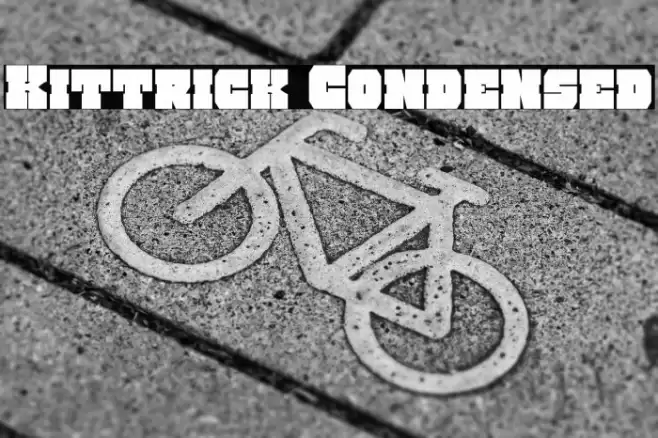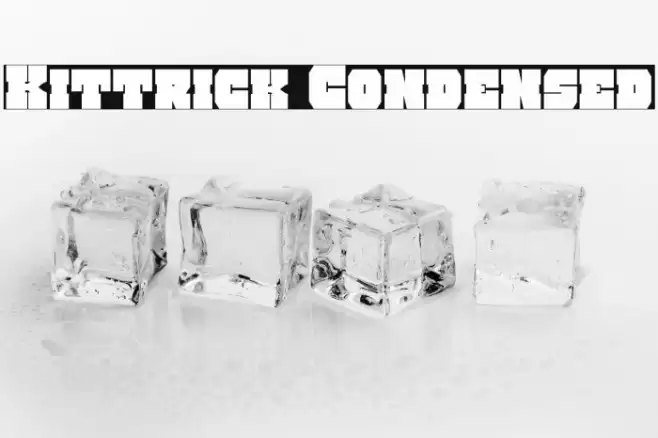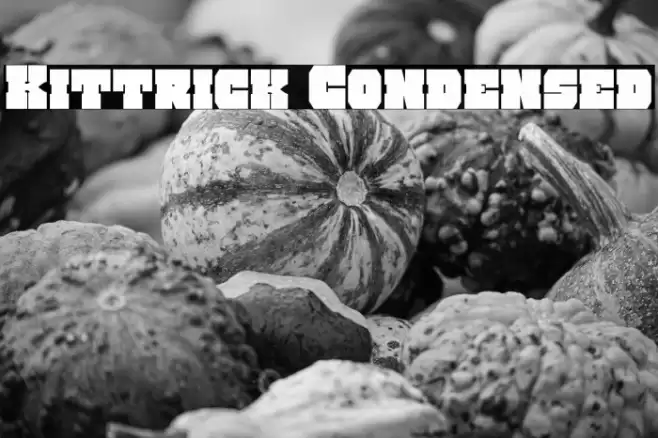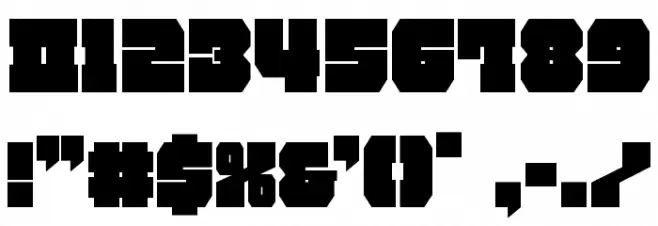
Kittrick Condensed Font
Kittrick Condensed Description
This font features a bold, geometric design with a strong presence. The characters are blocky and condensed, giving them a powerful and impactful look. The uniformity in the stroke width across all characters contributes to a cohesive and structured appearance. The angular cuts and sharp edges add a modern and industrial feel, making it suitable for attention-grabbing headlines or branding that requires a bold statement. The font maintains a consistent height across uppercase, lowercase, and numerals, ensuring readability despite its condensed nature. The special characters are designed to match the overall bold aesthetic, providing a complete and versatile typeface.
A bold, geometric, and condensed font with a strong, industrial style from Uncategorized fonts.
- Proposed Projects: Ideal for posters, logos, branding, and headlines that need a bold and modern impact.
- Character Spacing: Tight
- Use Case: Headlines, Logos, Branding